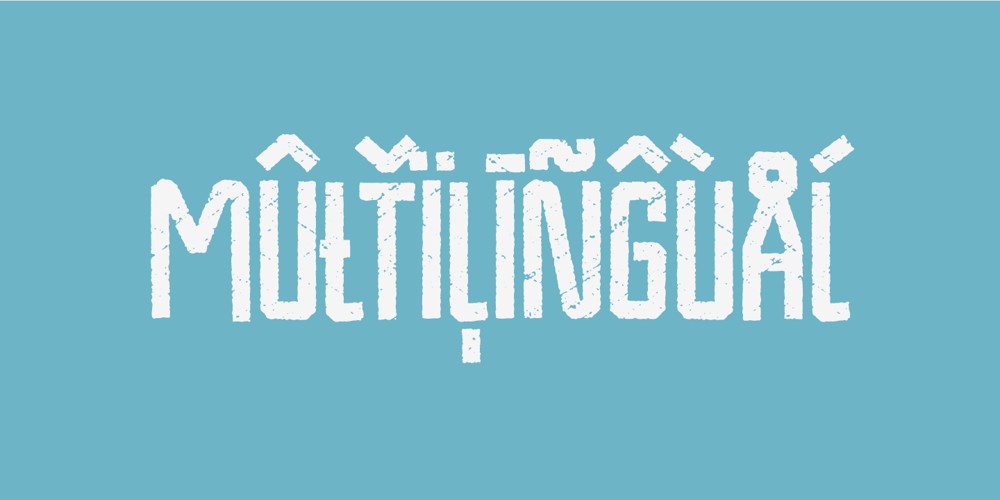
Videomax
Videomax font
Videomax Font Family was designed by Jakob Fischer and published by PizzaDude.dk. Videomax contains 2 styles and family package options. Videomax looks like something from the future – perhaps even something from a future where the world lies in ruins and is about to be taken over by hostile aliens. The worn letters represent the decades of war against the computers…or the aliens…or maybe the letters comes from a sign of a computer company from the eighties, which was recently found in an abandoned place. The speculations are many, but one thing is definitely true: Videomax got that grungy / computer / worldwar feeling! Write your text, and watch how the randomness of letters make your text look really good. I’ve put it 4 different versions of each letter, which makes it look really nice and worn!